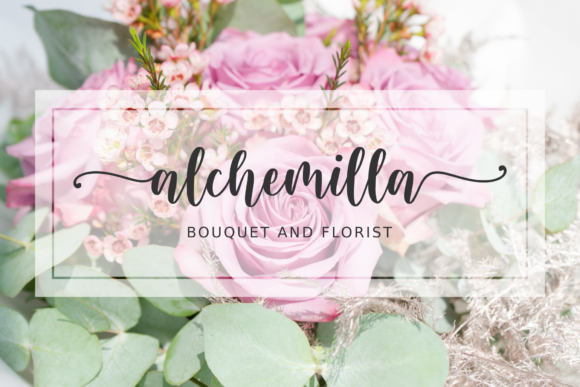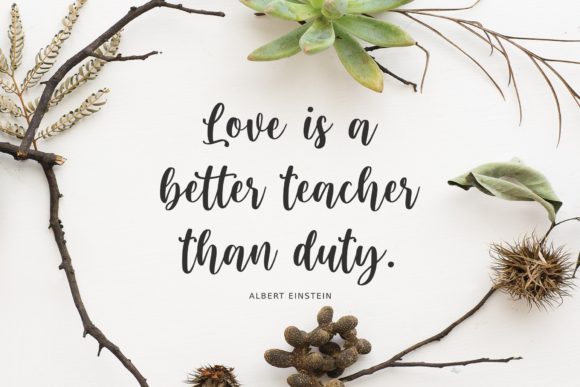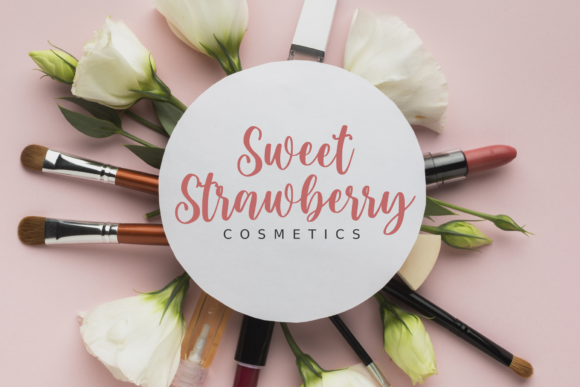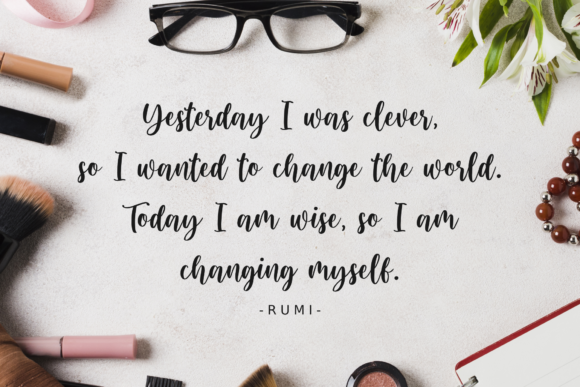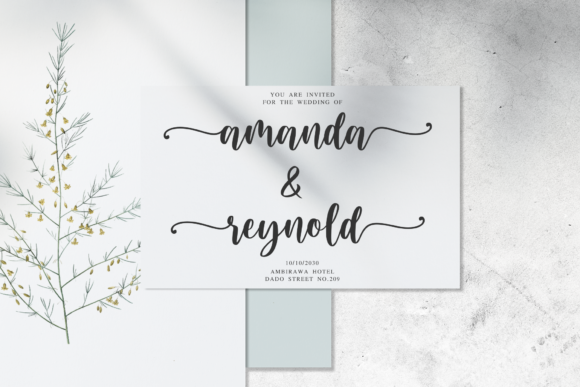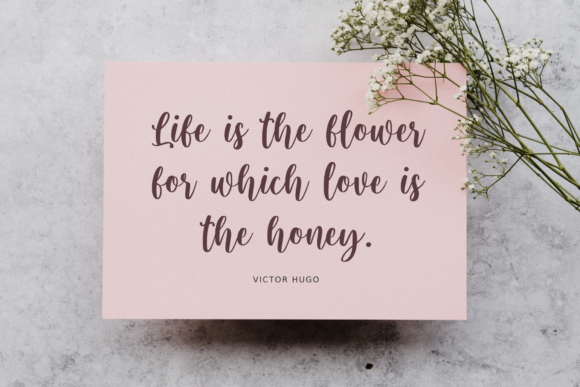
Introducing Blushring Font: A Modern and Elegant Handwritten Font
Are you tired of using the same old fonts for your design projects? Look no further! Blushring Font is a modern and unique handwritten font that is sure to elevate your designs to the next level. With its beautiful and elegant look, Blushring Font is perfect for designers and crafters who want to add a touch of sophistication to their work.
What Makes Blushring Font Special?
Blushring Font is not just any ordinary font. It features a wealth of alternates that give the font a beautiful and elegant look. The font is designed to be versatile and can be used for a variety of design projects, from branding and advertising to packaging and digital media. Whether you’re creating a logo, brochure, or social media post, Blushring Font is sure to make your design stand out.
Key Features of Blushring Font
- Modern and Unique Design: Blushring Font has a modern and unique design that is sure to catch the eye.
- Handwritten Style: The font has a handwritten style that gives it a personal and elegant touch.
- Wealth of Alternates: The font features a wealth of alternates that allow you to customize your design and make it more interesting.
- Versatile: Blushring Font is versatile and can be used for a variety of design projects.
Benefits of Using Blushring Font
Using Blushring Font can bring numerous benefits to your design projects. Here are a few:
- Adds Elegance and Sophistication: Blushring Font can add a touch of elegance and sophistication to your designs.
- Stand Out from the Crowd: The font’s unique design and alternates can help your design stand out from the crowd.
- Easy to Read: Despite its elegant look, Blushring Font is easy to read and can be used for body text.
- Customizable: The font’s alternates allow you to customize your design and make it more interesting.
How to Use Blushring Font
Using Blushring Font is easy. Here are a few tips:
- Pair it with Other Fonts: Pair Blushring Font with other fonts to create a unique and interesting design.
- Use it for Headings and Titles: Use Blushring Font for headings and titles to add a touch of elegance and sophistication.
- Experiment with Alternates: Experiment with the font’s alternates to find the perfect look for your design.
In conclusion, Blushring Font is a modern and unique handwritten font that is perfect for designers and crafters who want to add a touch of elegance and sophistication to their designs. With its wealth of alternates and versatile design, Blushring Font is sure to elevate your designs to the next level. So why wait? Try Blushring Font today and see the difference it can make!
Here are a few tips and tricks to help you get the most out of Blushring Font:
- Use it for Branding: Use Blushring Font for branding and advertising to add a touch of elegance and sophistication.
- Experiment with Colors: Experiment with different colors to find the perfect look for your design.
- Pair it with Images: Pair Blushring Font with images to create a visually appealing design.